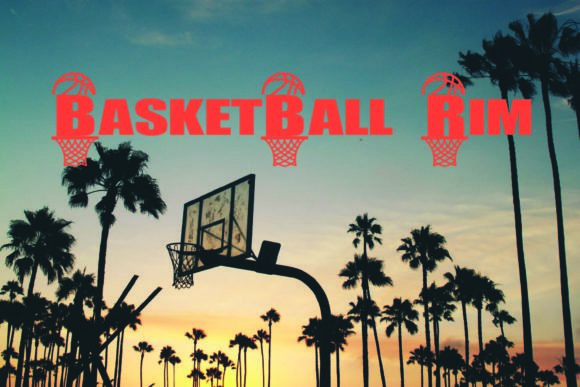
Unleash the Frenzy of Basketball with a Custom Font
Imagine you’re at a packed basketball stadium, the crowd cheering as the ball soars through the air, and the sound of the buzzer echoes through the speakers. It’s a moment of pure excitement, and it’s exactly this feeling that the Basketball Rim Font aims to capture. This unique display font is designed to bring a touch of the basketball court to your designs, making it perfect for any project that requires a personalized look.
For designers, the Basketball Rim Font is a valuable addition to their toolkit. Its bold, eye-catching style is sure to grab attention and add a professional touch to any project. Whether you’re creating a sports-themed website, designing a basketball jersey, or simply want to add some flair to your social media graphics, this font is sure to deliver.
Basketball Rim Font Key Features
- Font Family: Basketball Rim Font is a custom-designed font, specifically created for basketball-related applications.
- Unique Characteristics: Features a bold, modern design with clean lines and a distinctive basketball-inspired aesthetic, making it a standout choice for sports-related applications.
Basketball Rim Font Review
Overall, I think Basketball Rim Font is a unique and creative choice for any project. It has a lot of character and could add a fun, playful touch to a design.
- ✨ Unique design: Basketball Rim Font has a distinctive style that sets it apart from more common fonts.
- ✨ Versatile: It can be used for a variety of projects, from sports-themed designs to more abstract concepts.
- ✨ High-quality: The font appears to be well-designed and rendered, with crisp lines and clear typography.
- ⚠️ Limited legibility: In some cases, the font’s unique design may make it difficult to read, especially at smaller sizes.
- ⚠️ Limited character set: I couldn’t find a comprehensive character set for Basketball Rim Font, which may limit its use in certain projects.
- ⚠️ Limited font weights: The font seems to be available in only a few weights, which may not be sufficient for all design needs.
Basketball Rim Font is a bold and eye-catching choice that could add a lot of personality to a design. While it has some limitations, I think it’s worth considering for projects where a unique font is desired. Just be sure to use it thoughtfully and in the right context to ensure maximum impact.
The Basketball Rim Font is ideal for sports-related designs, such as:
– Basketball-themed posters and flyers.
– Sports jersey and uniform designs.
– Basketball court graphics and branding.
To get the most out of the Basketball Rim Font, consider the following tips:
– Use it in conjunction with bold and italic font styles to create visual interest.
– Experiment with different font sizes and colors to create a unique look.
– Combine the font with graphics and images related to basketball to create a cohesive design.
Also, keep in mind that Basketball Rim Font is designed to be bold and attention-grabbing, so it’s best used in contexts where a strong visual statement is needed.